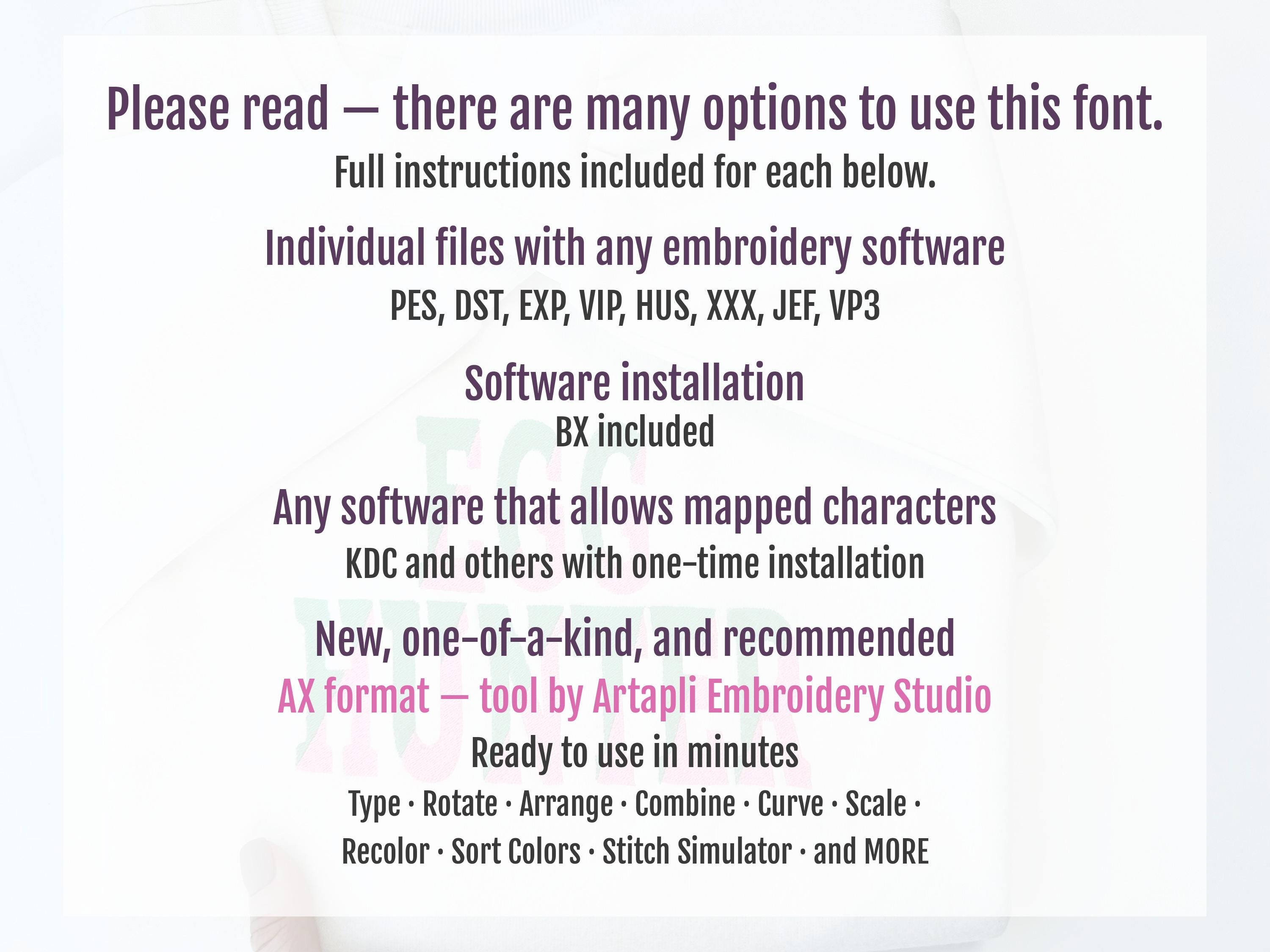
Split diagonal FONT varsity collegiate fill stitch 2 color narrow alphabet sports monogram machine embroidery designs sizes 1.5 up to 4.7in
Whole alphabet Aa-Zz uppercase and lowercase letters, numbers 0-9, and punctuation.